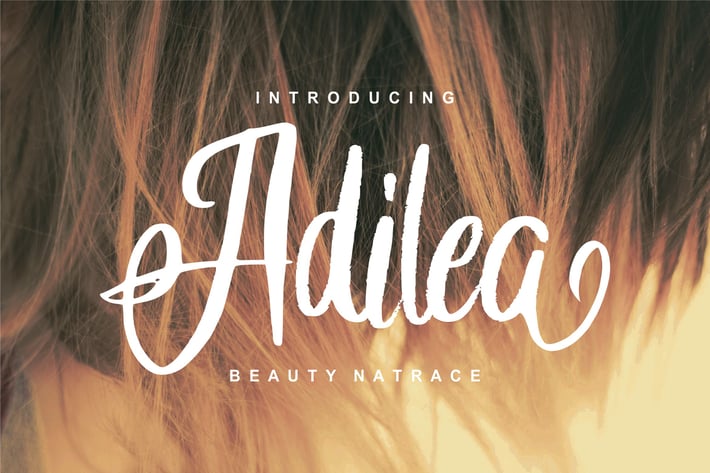
Adilea | Beauty Natrace Script Font
Beauty Natrace Script Font with a calligraphy style, So beautiful on invitation like greeting cards, branding materials, business cards, quotes, posters, and more!